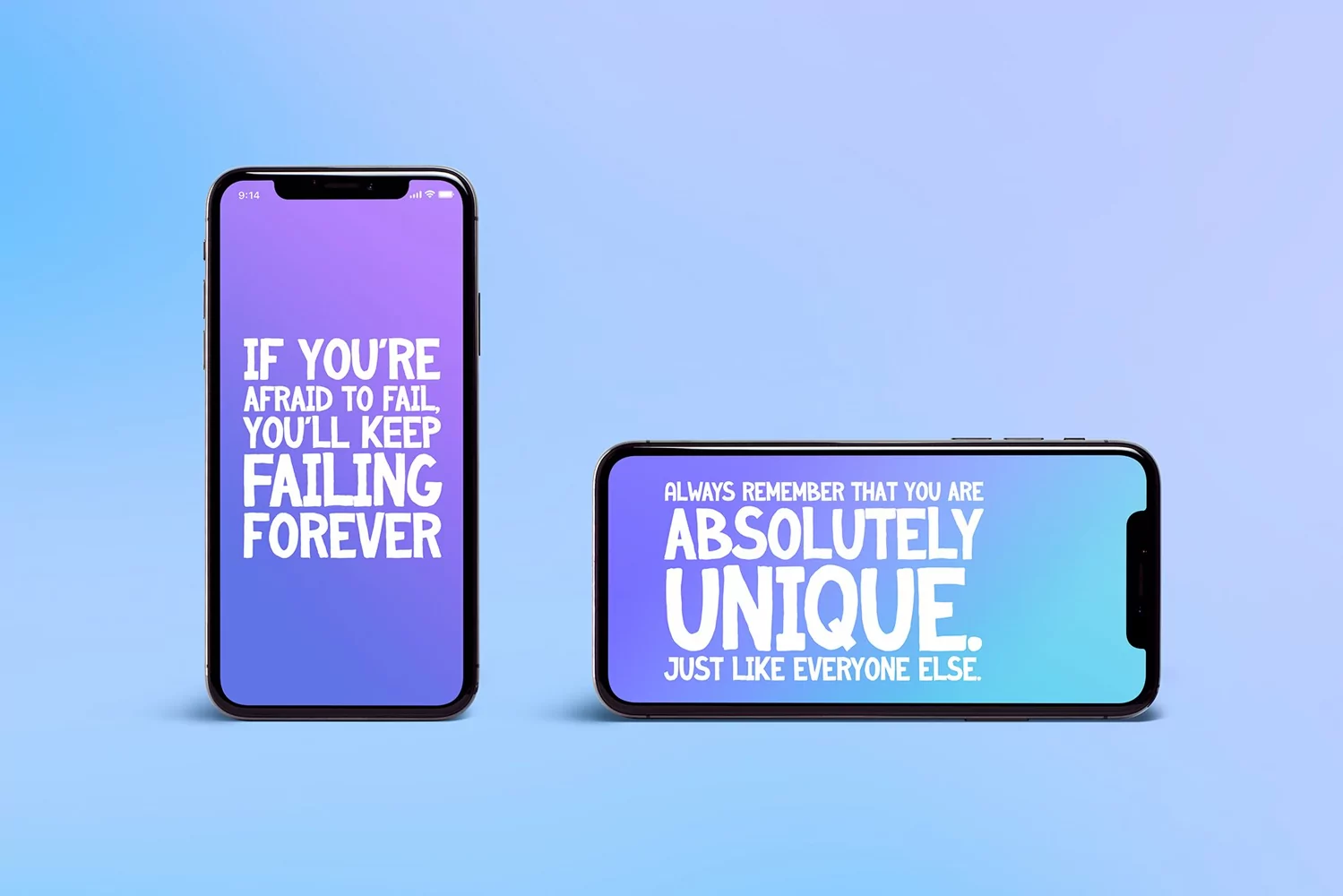
Playful bold, chunky hand-drawn uppercase sans-serif font with 2 sets of capital letters, numbers and symbols great for headlines, quotes, banners, bilboards, logo designs, posters, flyers, craft, art projects, advertising etc.